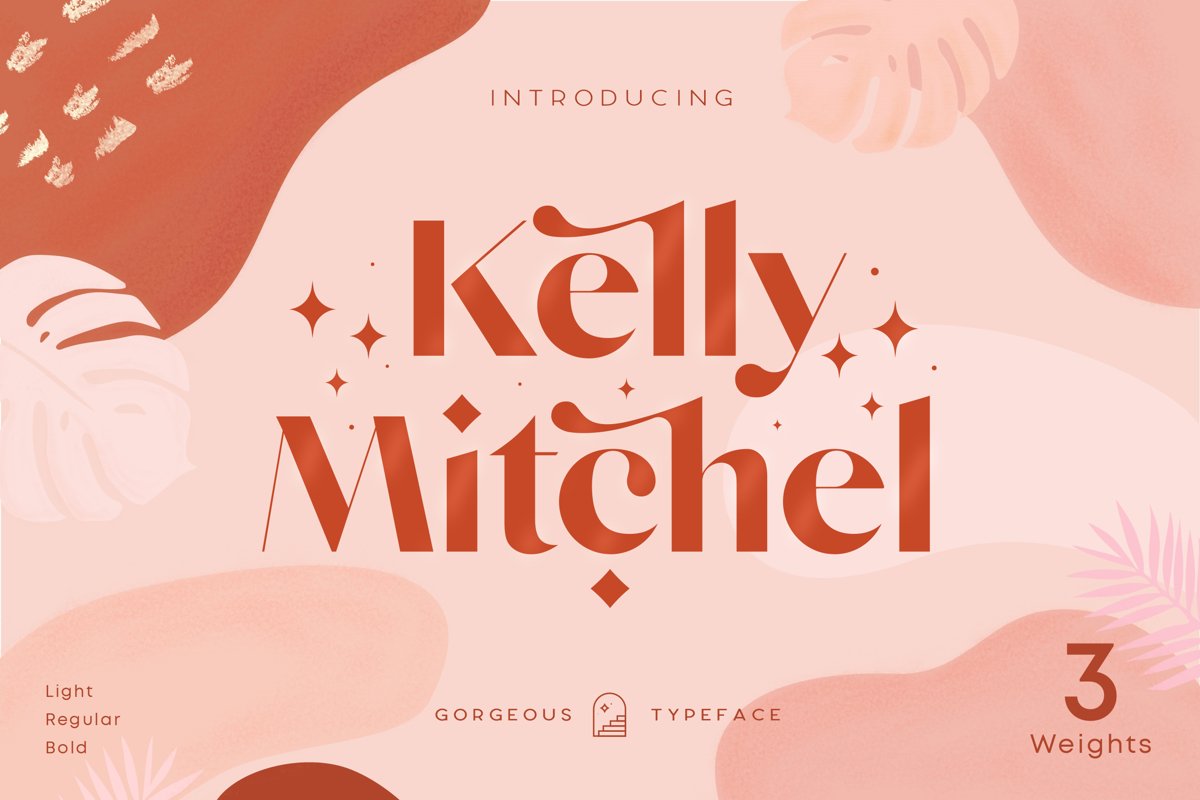
Kelly - Three Weights Classy Sans Serif
Kelly is Sans serif Version of Mikela Typeface. It is a Bold Minimalist Elegant Modern vintage font with beautiful ligatures, tons of special alternative glyphs, ornament and multilingual support. It's a very versatile font that works great in large and small sizes. Perfect for branding projects, Logo design, Clothing Branding, product packaging, magazine headers, or simply as a stylish text overlay to any background image.
• 3 Weights font
• Lowercase and Uppercase
• Stylistic Alternates & Ligatures
• Accented characters
• Multiple Languages Supported